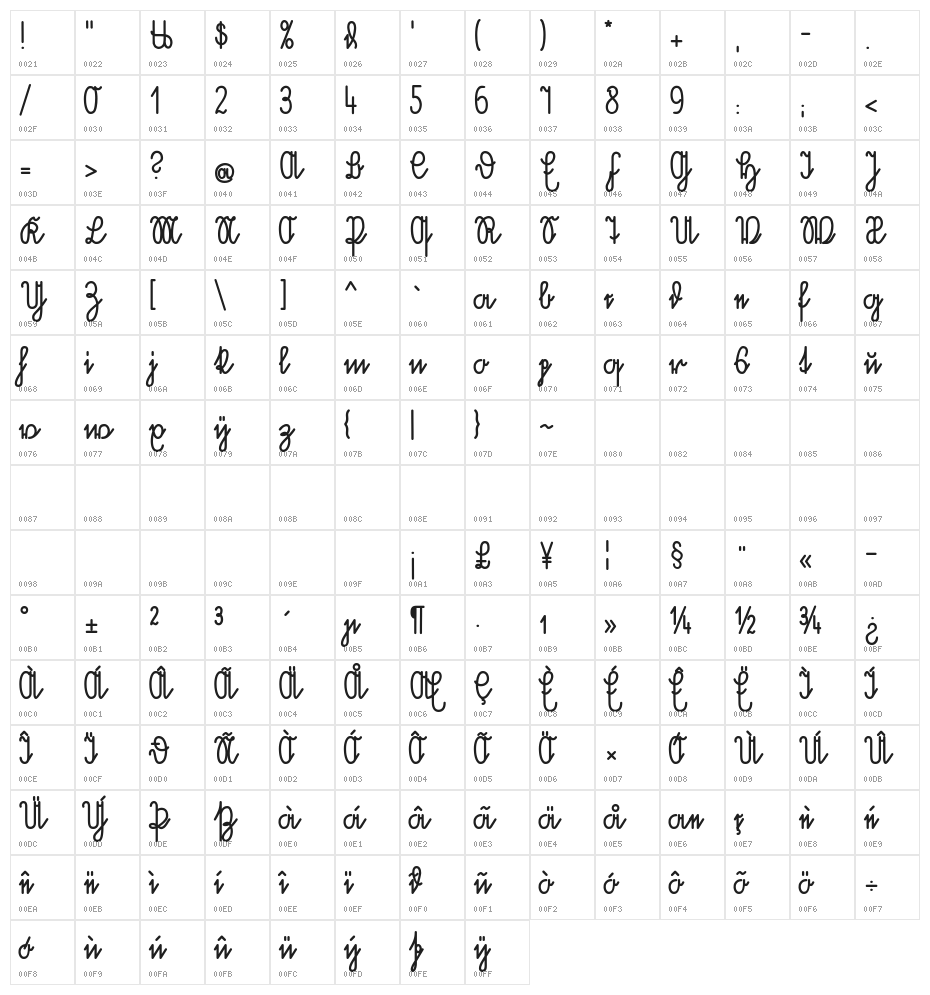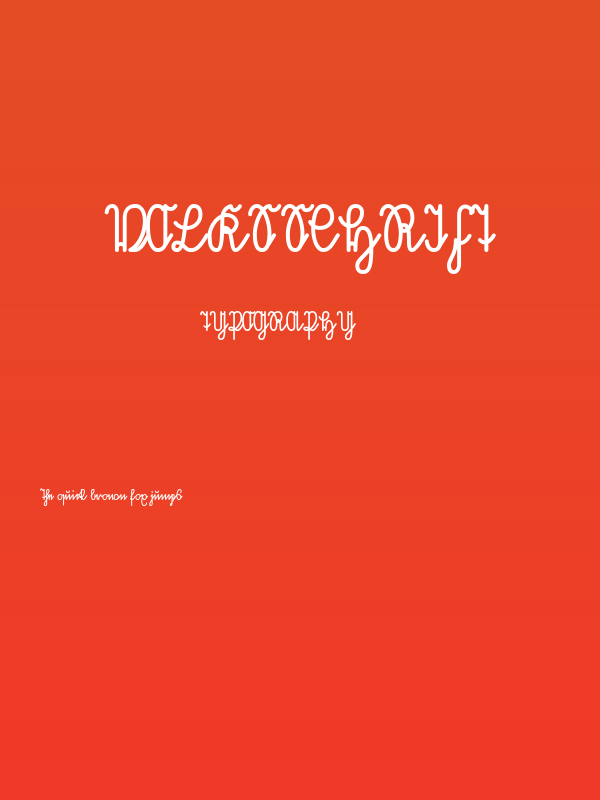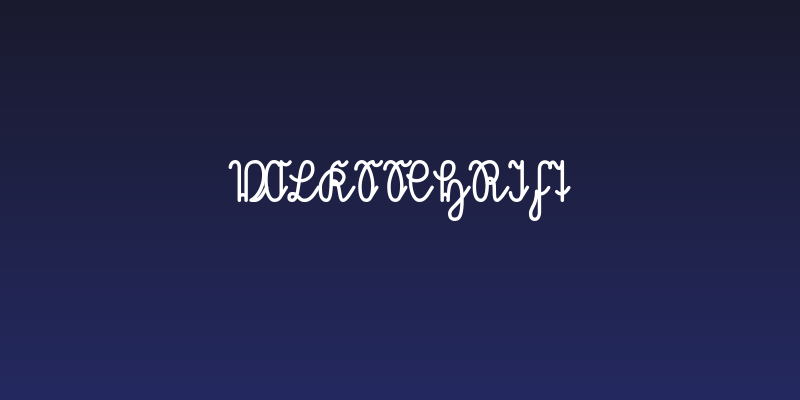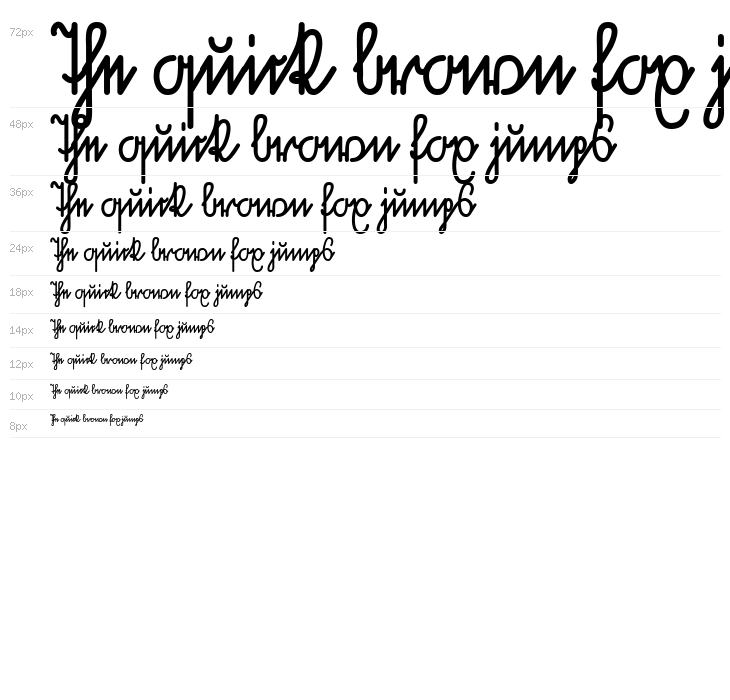
Volksschrift Font
Volksschrift Description
This font features a unique and intricate script style, characterized by its flowing, interconnected letters that create a sense of elegance and fluidity. The uppercase letters exhibit a consistent looped design, while the lowercase letters maintain a cohesive cursive appearance. Numbers and special characters are designed to match the overall aesthetic, with smooth curves and a playful yet sophisticated look. The font's artistic nature makes it suitable for creative projects where a touch of elegance is desired.
| Proposed Projects | Ideal for wedding invitations, greeting cards, branding, and artistic projects requiring a sophisticated touch. |